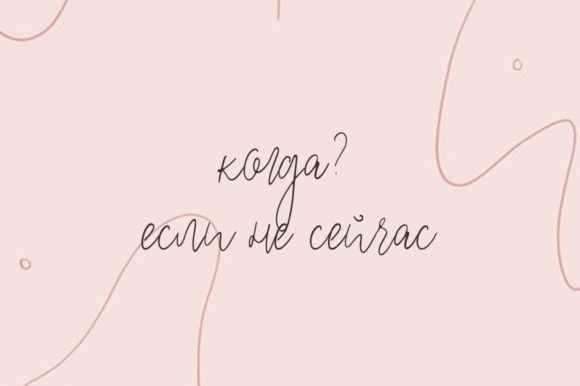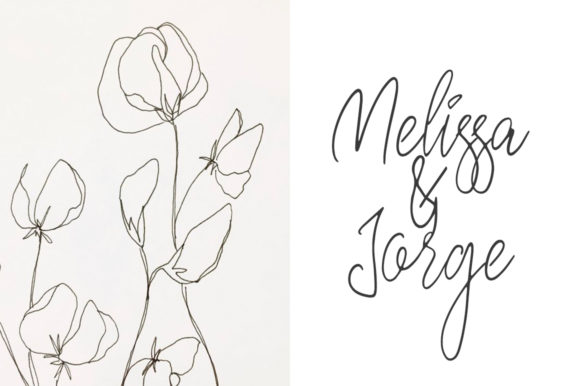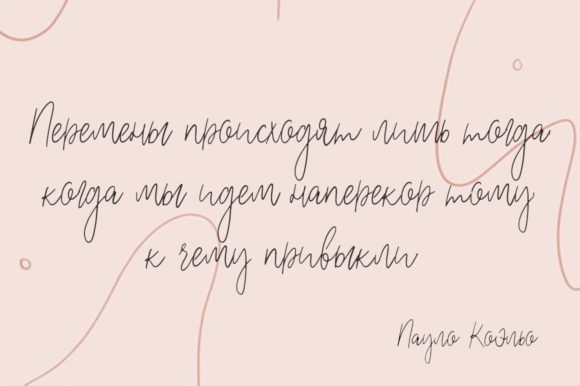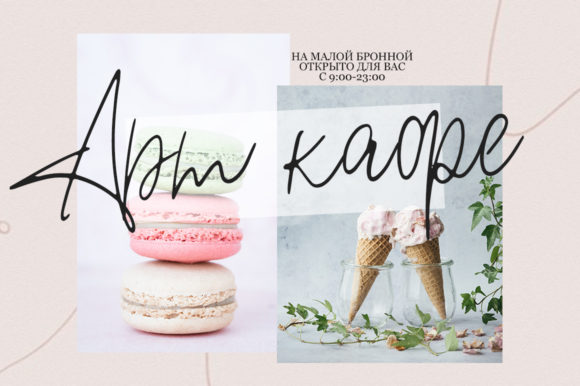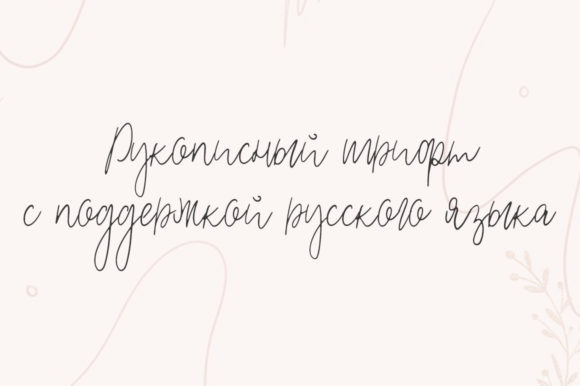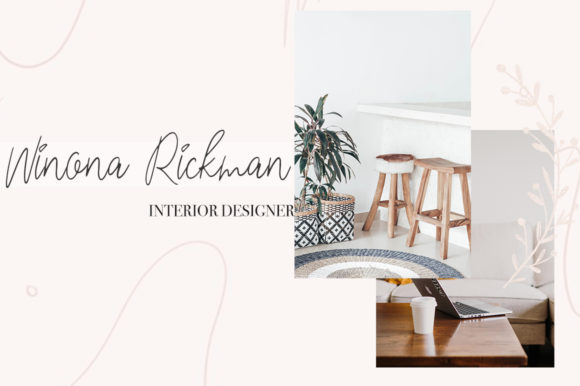
Introducing Florina Font: A Versatile and Romantic Handwritten Delight
Are you on the hunt for a font that exudes elegance, sophistication, and a touch of whimsy? Look no further than Florina Font, a beautiful handwritten font that is sure to capture your heart. With its unique feel and versatility, Florina is perfect for designers, crafters, and anyone looking to add a personal touch to their projects.
A Font that Speaks to You
Florina Font is a romantic and charming typeface that boasts a distinctive character. Its handwritten style gives it a personal and approachable feel, making it ideal for a wide range of applications, from wedding invitations and branding materials to digital content and craft projects. Whether you’re looking to create something classic and sophisticated or playful and modern, Florina Font is the perfect choice.
Language Support
One of the standout features of Florina Font is its exceptional language support. This font fully supports both Cyrillic and Latin characters, making it an excellent choice for designers and crafters working with clients or audiences from diverse linguistic backgrounds. With Florina, you can create multilingual content with ease, confident that your text will look beautiful and professional.
Florina Font is incredibly versatile, making it suitable for a wide range of projects and applications. Here are just a few examples of how you can use Florina:
- Wedding Invitations and Stationery: Add a touch of romance and elegance to your wedding invitations, save-the-dates, and other stationery with Florina Font.
- Branding and Packaging: Use Florina to create unique and eye-catching branding materials, such as logos, business cards, and product labels.
- Digital Content: Florina Font is perfect for bloggers, social media influencers, and content creators looking to add a personal touch to their digital content.
- Craft Projects: Florina is a great choice for crafters working on projects such as card making, scrapbooking, and DIY home decor.
Why Choose Florina Font?
With so many fonts to choose from, why should you choose Florina? Here are just a few reasons why Florina Font stands out:
- Unique Character: Florina Font has a distinctive and charming character that sets it apart from other fonts.
- Exceptional Language Support: With support for both Cyrillic and Latin characters, Florina is an excellent choice for multilingual projects.
- Versatility: Florina Font is suitable for a wide range of applications and projects.
In conclusion, Florina Font is a beautiful and versatile handwritten font that is sure to delight designers and crafters alike. With its unique character, exceptional language support, and versatility, Florina is the perfect choice for anyone looking to add a personal touch to their projects. Whether you’re working on a wedding invitation, branding materials, or a craft project, Florina Font is sure to impress.